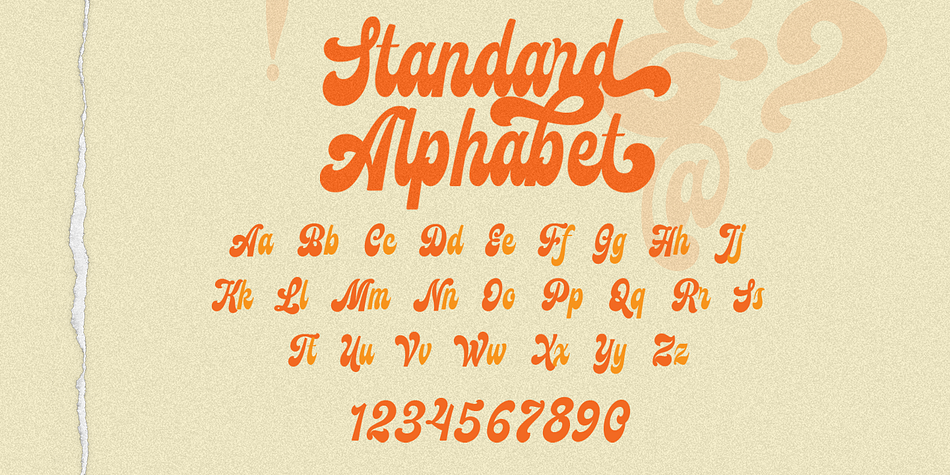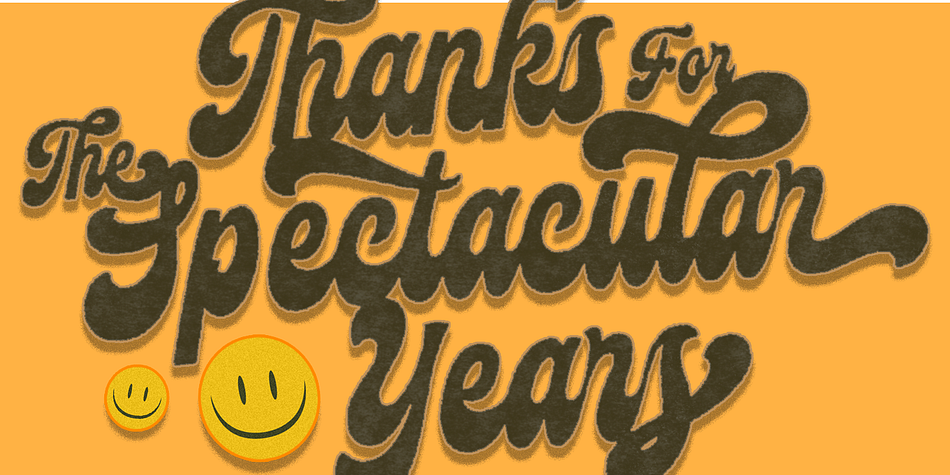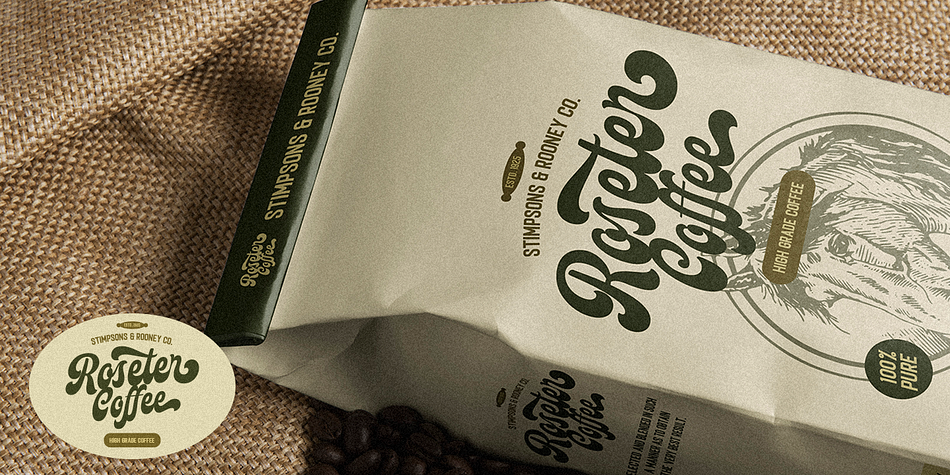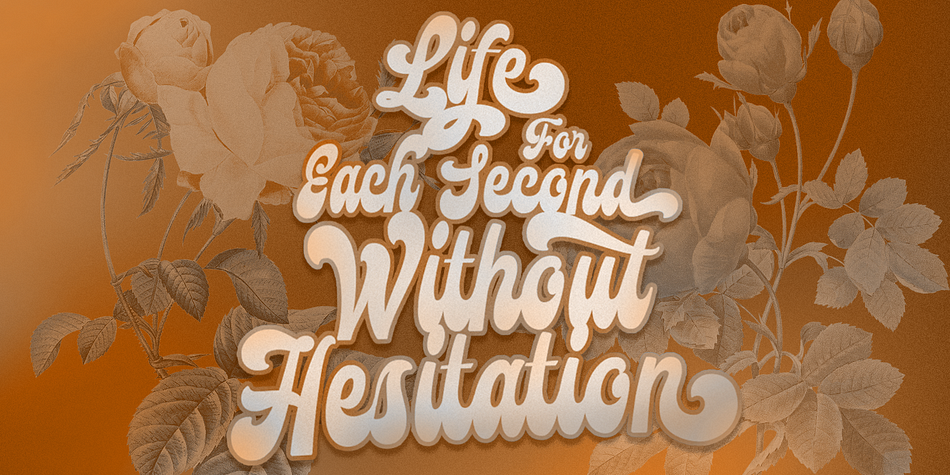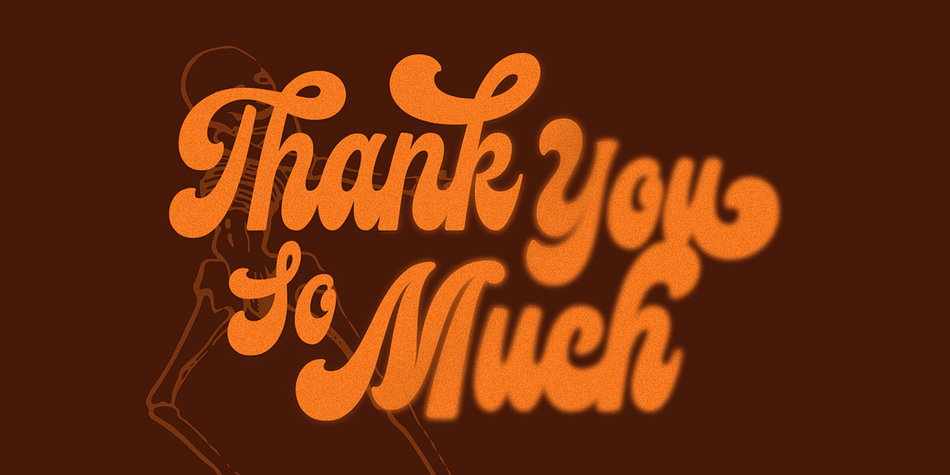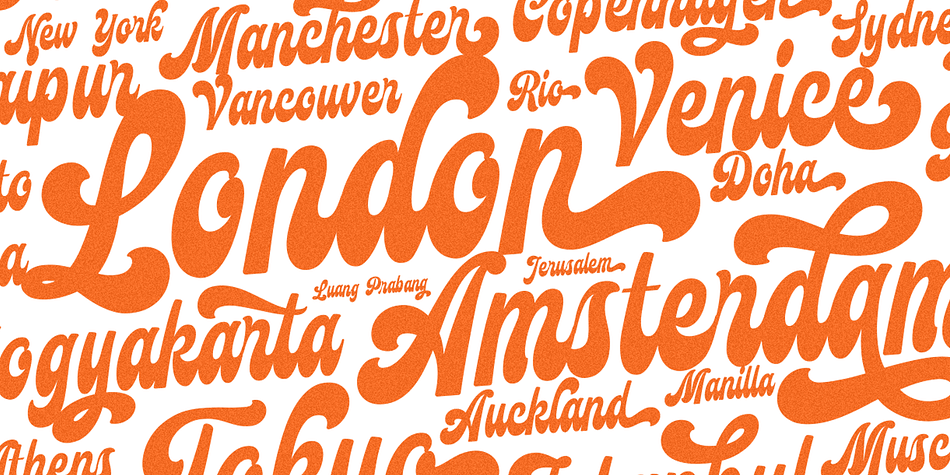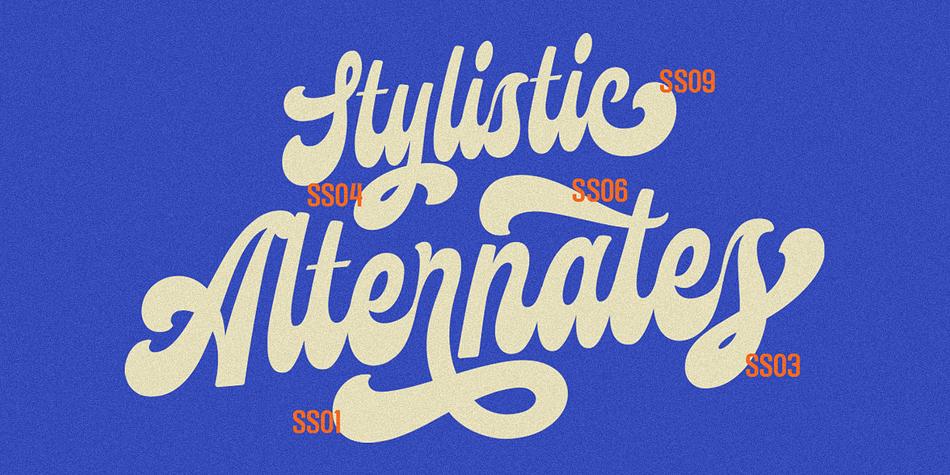
Designed by Hendry Juanda, Mayburn is a retro and script font published by Letterhend Studio.
Introducing, Mayburn Script - a bold script with a touch of retro feel. This type of font perfectly made to be applied especially in logo, and the other various formal forms such as invitations, labels, logos, magazines, books, greeting / wedding cards, packaging, fashion, make up, stationery, novels, labels or any type of advertising purpose.
- alternates and ligatures